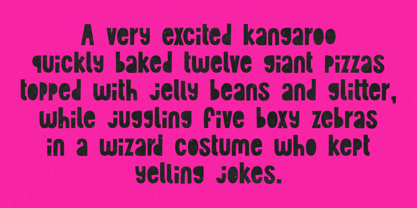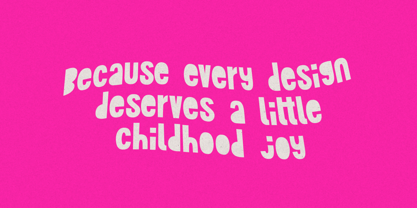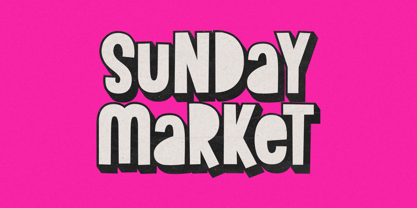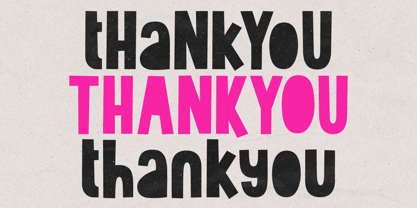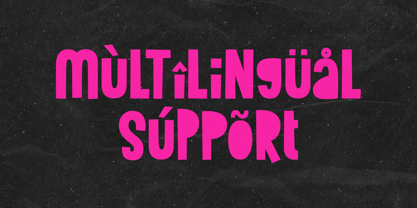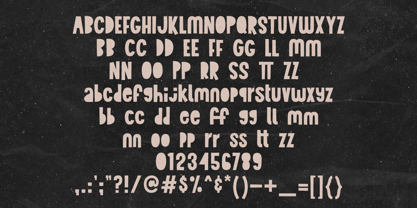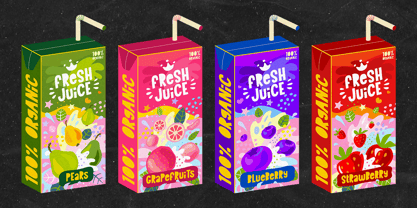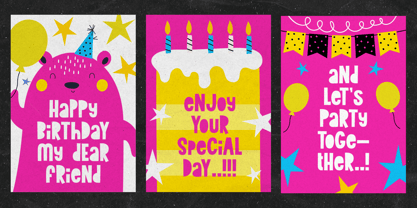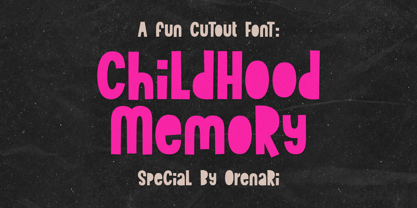
Childhood Memory
by Orenari
The Childhood Memory Font Family was designed by Lia Wijayanti and published by Orenari. Childhood Memory contains 1 styles.
Introducing Childhood Memory – a playful cut-out style font bursting with fun and creativity!
Inspired by cheerful crafts and colorful childhood moments, this font brings a handmade charm to every letter. Its quirky shapes and bold personality make it perfect for kids’ projects, posters, games, toys, party invitations, and anything that needs a joyful pop.
Whether you're designing for little dreamers or just want to add a spark of fun to your work, Childhood Memory is here to play!✨